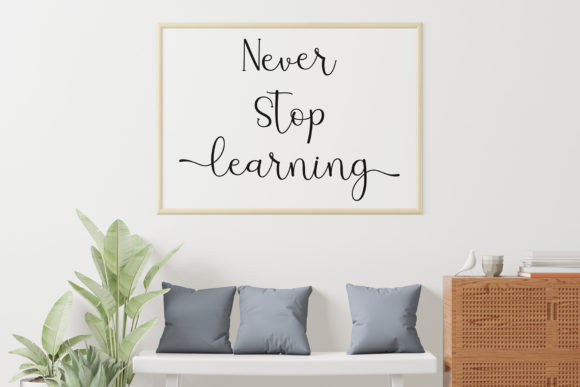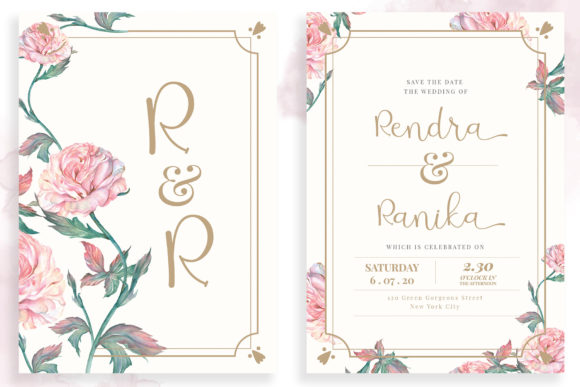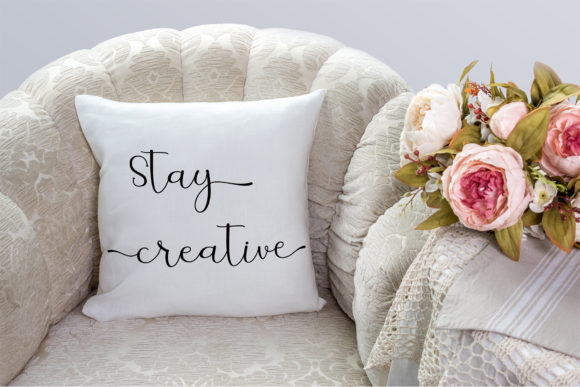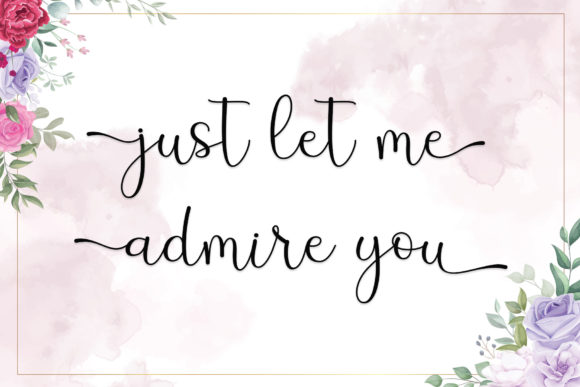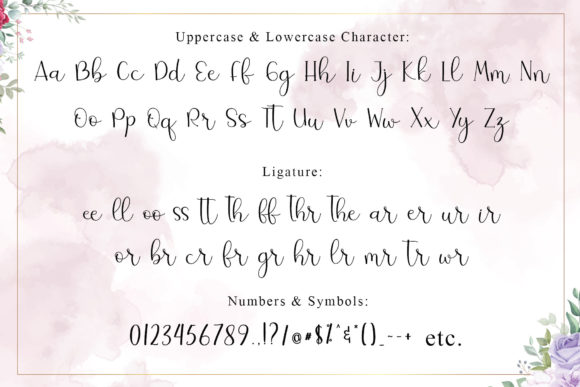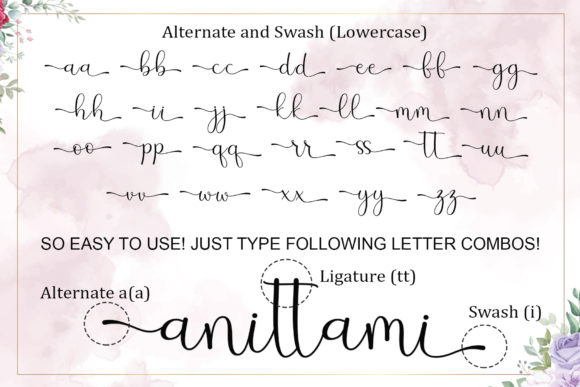
Introduction to Rosebright Font
Do you remember that moment when a single font choice completely transformed your design project? For me, it was a free download of a quirky display font that added a touch of whimsy to a otherwise straightforward logo design. Since then, I’ve been on the lookout for fonts that can elevate my creative projects to the next level. That’s why I’m excited to share with you my latest discovery – the Rosebright Font.
This cool display font is the perfect addition to any design project, and its versatility makes it a valuable resource for designers. With its PUA encoding, accessing all of the glyphs and swashes is a breeze, allowing you to customize your design to perfection. Whether you’re working on a high-quality logo, a creative project with a transparent background, or a simple text overlay, Rosebright Font is sure to make your design stand out.
Key Features of Rosebright Font
- High-quality, elegant design perfect for creative projects and presentations.
- Features a transparent background, allowing for seamless integration into designs with complex backgrounds.
- Designed in high resolution (300 DPI) to ensure crisp and clear text rendering, ideal for print and digital use.
- Comes in a range of sizes, from 12pt to 72pt, making it suitable for various design applications, from small text to large headings.
- Includes a unique set of glyphs and ligatures, adding a touch of sophistication to any creative project.
- Can be used as a design resource for various industries, including fashion, beauty, and lifestyle, due to its modern and elegant aesthetic.
Honest Review: Rosebright Font
I recently stumbled upon the Rosebright Font and was excited to try it out for my next creative project. I’m always on the lookout for high-quality design resources that can elevate my work.
What works well about the Rosebright Font is its elegant and sophisticated design. The font is perfect for creating a sense of luxury and sophistication in your designs. I particularly like the way it pairs well with transparent backgrounds, adding an extra layer of depth to your visuals.
- ✨ Elegant and sophisticated design
- ✨ Works well with transparent backgrounds
- ✨ High-quality design resource
However, I did encounter a few limitations while using the Rosebright Font. One of the main issues I faced was the lack of versatility in terms of font sizes. While it looks great at standard sizes, it can become quite difficult to read at smaller sizes.
Overall, I’m quite impressed with the Rosebright Font. It’s a great addition to any designer’s toolkit and can definitely help take your designs to the next level.
Rosebright Font
Tips for Getting the Most Out of the Rosebright Font
To get the most out of the Rosebright Font, use it on a transparent background for a clean and elegant look. Combine it with other design elements for a unique and eye-catching visual.
The Rosebright Font is perfect for:
- Business cards and marketing materials.
- Blog posts and social media graphics.